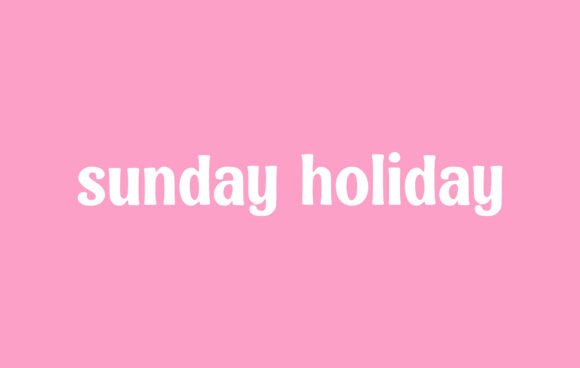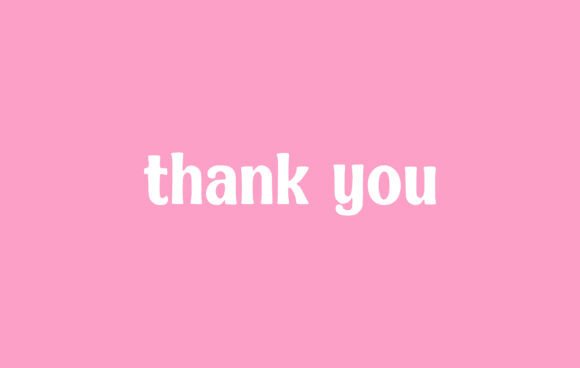
Introducing Bagpipe Font: The Perfect Blend of Boldness and Whimsy
Are you tired of using the same old fonts for your designs? Look no further than Bagpipe Font, a bold and playful display font that’s sure to add a touch of personality to your projects. With its quirky, hand-cut charm and chunky letterforms, Bagpipe is the perfect choice for designers and crafters looking to add a friendly and casual tone to their work.
The Unique Characteristics of Bagpipe Font
Bagpipe Font boasts a unique set of characteristics that set it apart from other fonts. Its thick structure ensures high readability even at smaller sizes, making it ideal for use in a variety of applications, from headlines and labels to posters and social media graphics. The font’s subtle irregularities and hand-cut charm give it a fun, handcrafted feel that’s sure to capture the attention of your audience.
Whether you’re designing kids’ projects, birthday invites, logos, merchandise, or social media graphics, Bagpipe Font is the perfect choice. Its bold energy and soft, rounded finish make it suitable for both print and digital work, and its whimsical vibe adds a creative spark to any design. The font’s friendly and casual tone is sure to appeal to a wide range of audiences, from children to adults.
Key Features of Bagpipe Font
- Bold and playful display font: Bagpipe Font is designed to make a statement, with its chunky letterforms and bold structure ensuring that your designs stand out.
- Quirky, hand-cut charm: The font’s hand-cut charm and subtle irregularities give it a fun, handcrafted feel that’s sure to add personality to your designs.
- High readability: Bagpipe Font’s thick structure ensures high readability even at smaller sizes, making it ideal for use in a variety of applications.
- Whimsical vibe: The font’s whimsical vibe adds a creative spark to headlines, labels, or posters, making it perfect for designers looking to add a touch of fun to their work.
- Suitable for print and digital work: Bagpipe Font is suitable for use in both print and digital applications, making it a versatile addition to any designer’s toolkit.
Tips for Using Bagpipe Font
To get the most out of Bagpipe Font, here are a few tips to keep in mind:
- Use it for headlines and titles: Bagpipe Font is perfect for use in headlines and titles, where its bold structure and whimsical vibe can really make a statement.
- Pair it with other fonts: Bagpipe Font pairs well with other fonts, so don’t be afraid to experiment with different combinations to find the perfect look for your design.
- Use it for kids’ projects: Bagpipe Font is a great choice for kids’ projects, such as birthday invites, coloring pages, and educational materials.
- Experiment with different colors: Bagpipe Font looks great in a variety of colors, so don’t be afraid to experiment with different color schemes to find the perfect look for your design.
In conclusion, Bagpipe Font is a bold and playful display font that’s perfect for designers and crafters looking to add a touch of personality to their work. With its quirky, hand-cut charm and chunky letterforms, Bagpipe is sure to capture the attention of your audience and add a creative spark to your designs. Whether you’re designing kids’ projects, birthday invites, logos, merchandise, or social media graphics, Bagpipe Font is the perfect choice.
Get Ready to Add Some Personality to Your Designs